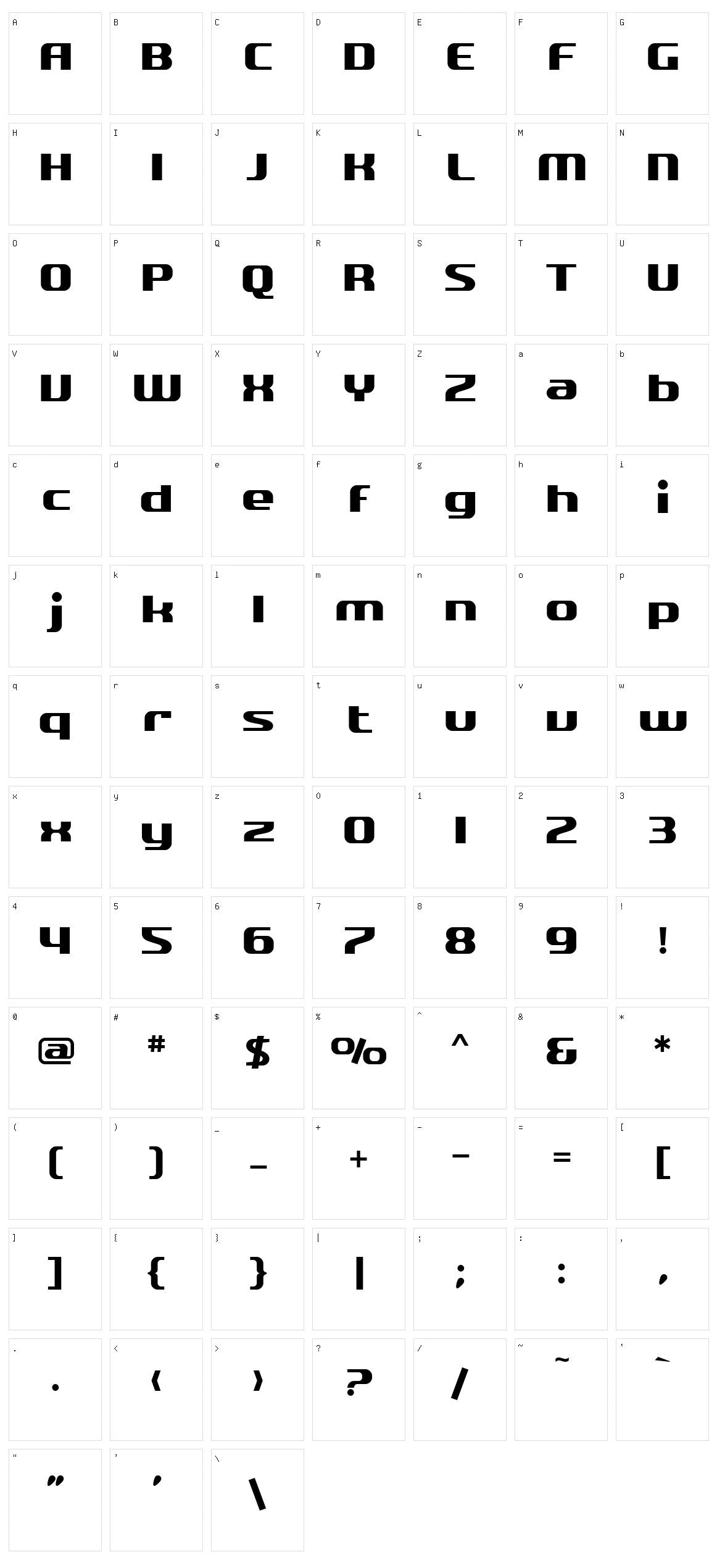
SF Quartzite
Designed by: ShyFonts
- Includes complete character set (lowercase and uppercase letters,
numbers, punctuation, and accented characters).
- Proper spacing and kerning.